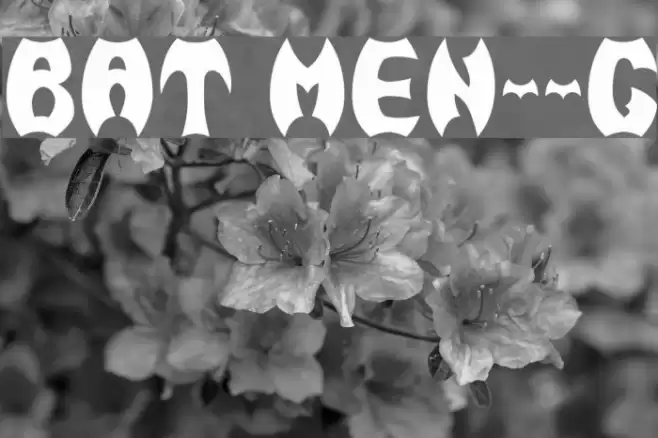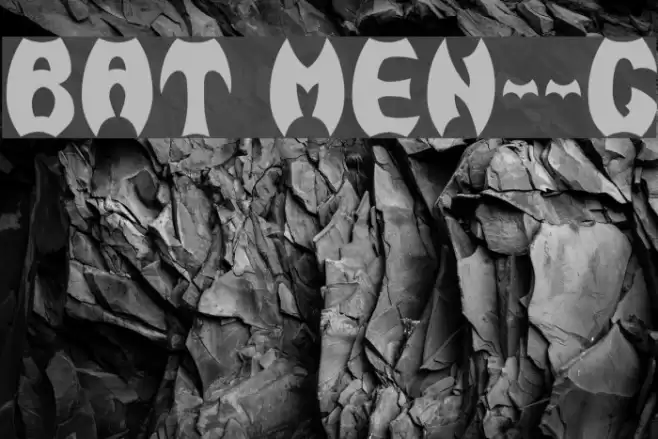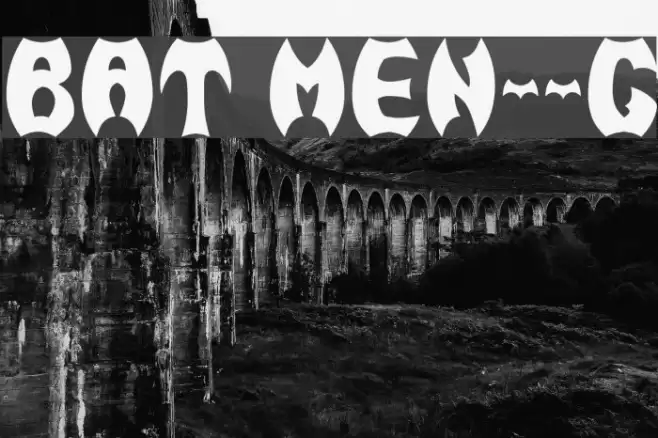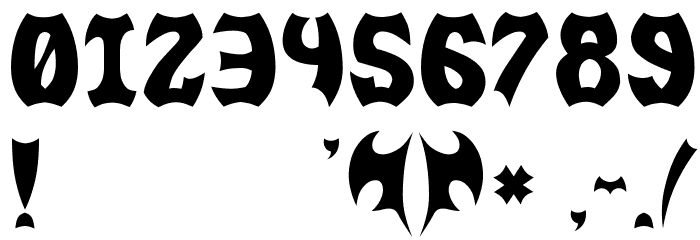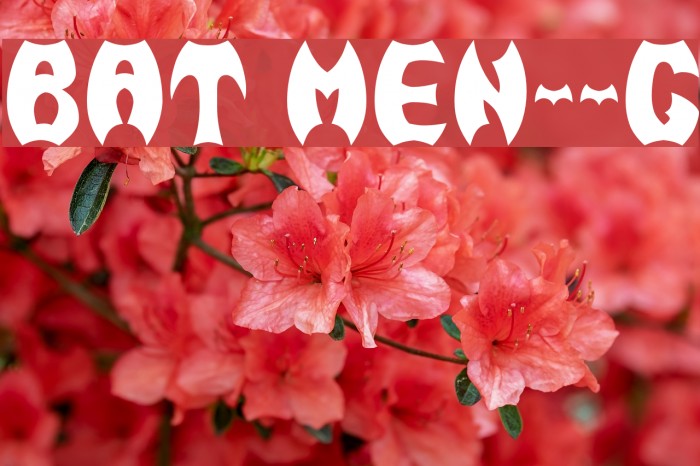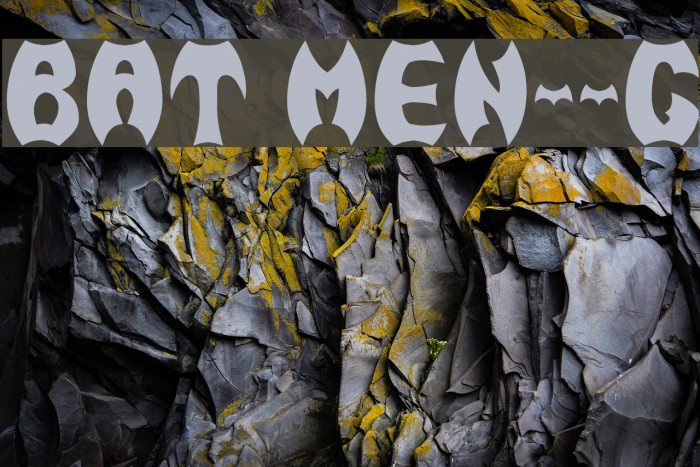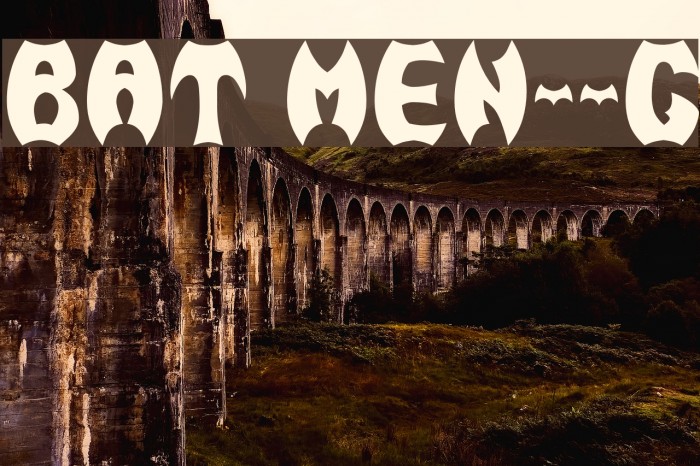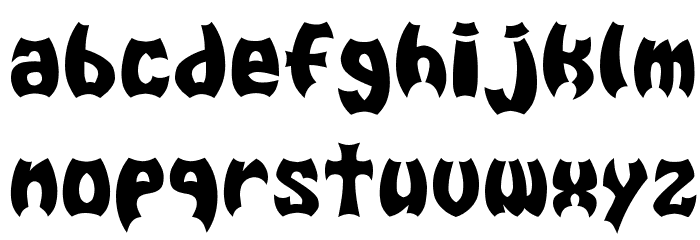
BAT MEN__G Font
BAT MEN__G Description
This font features a bold and dramatic style, characterized by its sharp, angular edges and unique cut-out shapes that resemble bat wings. The uppercase and lowercase letters maintain a consistent theme, with each character exhibiting a distinct, gothic flair. The numbers and special characters follow suit, adding to the overall cohesive and striking appearance. This font is designed to capture attention and evoke a sense of mystery and intrigue, making it ideal for projects that require a bold statement.
A bold, gothic-style font with sharp, angular edges and bat-like cut-out shapes from Uncategorized fonts.
- Proposed Projects: Ideal for Halloween-themed designs, comic book titles, movie posters, or any project requiring a dramatic and mysterious aesthetic.
- Overall Style: Gothic, Dramatic, Decorative
- Use Case: Headlines, Posters, Logos